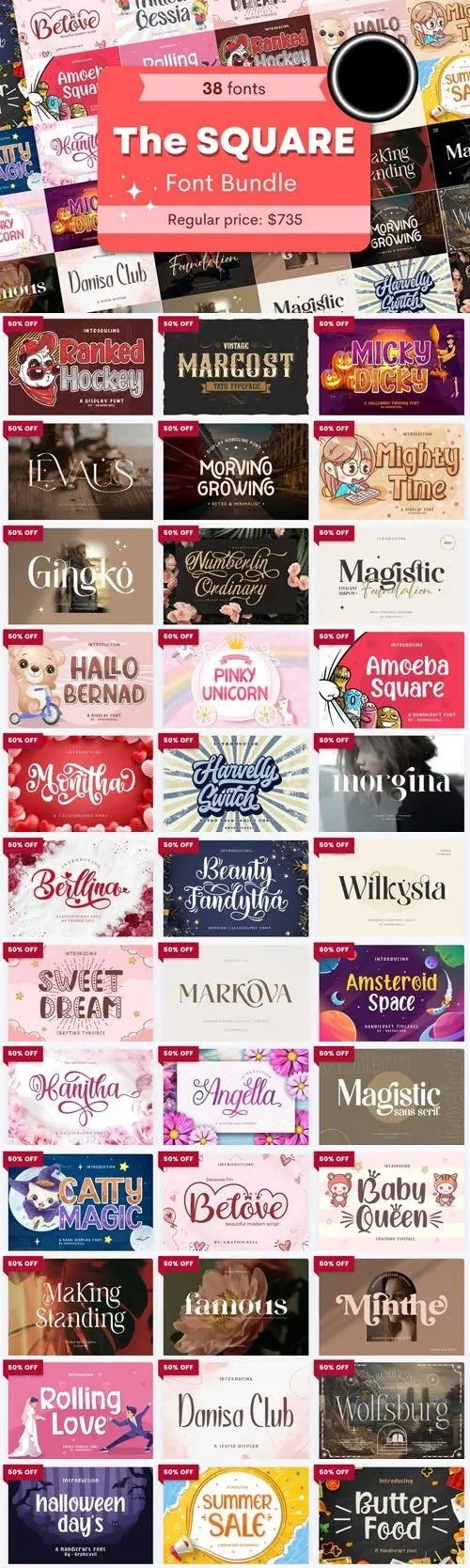
The Square Font Bundle – 38 Premium Fonts
The Square Font Bundle features a diverse collection of 38 premium fonts, each designed to elevate your creative projects. This bundle includes a variety of styles, from elegant serifs to modern sans-serifs, ensuring you have the perfect typeface for any occasion.
Each font in this bundle is crafted with precision, offering clear legibility and aesthetic appeal. These fonts are suitable for both digital and print applications, making them versatile for branding, logos, web design, and user interfaces.
When using these fonts, consider pairing different styles for a dynamic look. Use bold weights for headlines and lighter weights for body text to create a balanced visual hierarchy.